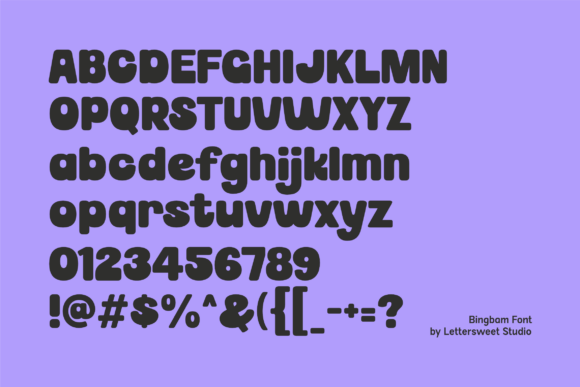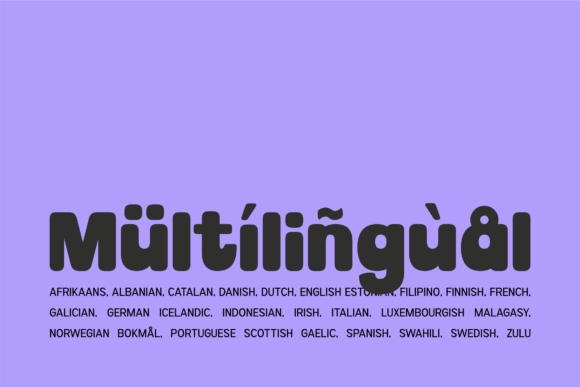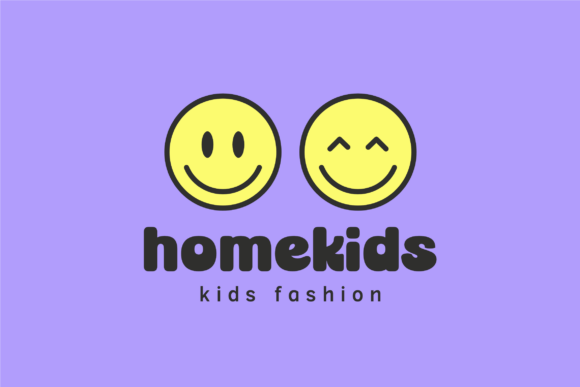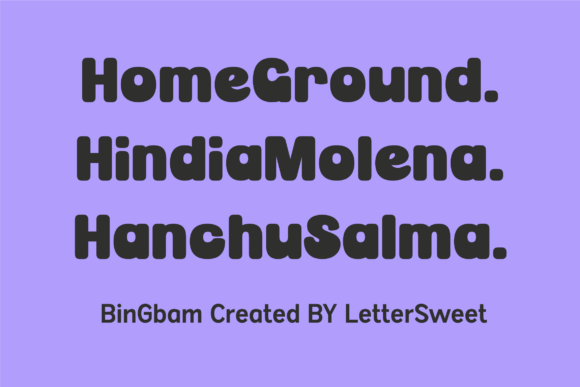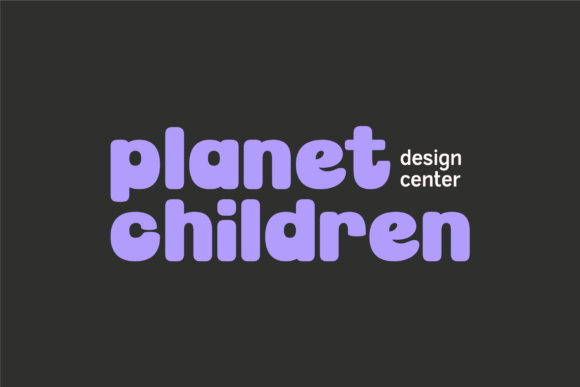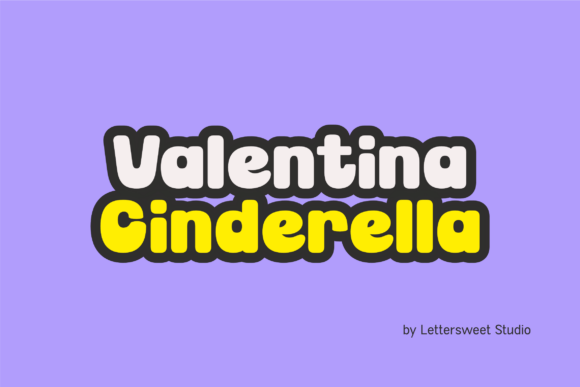
Bring Joy to Your Designs with the Bingbam Font
Have you ever been brainstorming a new project and suddenly a burst of creative energy hits you? You see a bright color palette, a playful font, and a catchy phrase all come together in your mind’s eye. That’s exactly the kind of spark the Bingbam Font is designed to ignite in your designs. This bold and cheerful font is the perfect companion for any project that needs a playful touch.
The Bingbam Font is a masterclass in capturing attention and delivering a unique visual impact. Its chunky letterforms and rounded edges make every word feel lively and energetic, perfect for kids’ projects, cartoons, branding, and social media graphics. Whether you’re creating a logo, headlines, or packaging, the Bingbam Font is sure to bring a smile to your audience’s face.
Bingbam Font Key Features
- Font Family: Bingbam Font is a sans-serif font family designed for digital use.
- Character Count: Bingbam Font includes a wide range of characters, including Latin, Cyrillic, and Greek alphabets, as well as punctuation and symbols.
- Size: Bingbam Font comes in 8 different font weights, ranging from Light to Black, allowing for versatility in design applications.
- Resolution: Designed to be highly legible at high resolutions, Bingbam Font is ideal for use in digital media, such as web design, mobile apps, and video games.
- Unique Characteristics: Bingbam Font features a clean, modern aesthetic with subtle rounded edges, making it an excellent choice for contemporary designs.
Bingbam Font Review
I recently had the chance to work with the Bingbam Font, and overall, I’m quite impressed. The font has a unique and playful vibe that’s perfect for projects that need a bit of whimsy. Here are some things that work well: ✨
- The font’s letterforms are well-designed and visually appealing.
- It’s great for use in digital design, particularly on screens where the font’s bold and bright appearance really shines.
- The font’s font-weight system is well-implemented, allowing for a range of weights to achieve the perfect look.
However, I did encounter a few limitations: ⚠️
- The font’s character set is somewhat limited, which may make it difficult to use in projects that require a wide range of languages or special characters.
- The font’s x-height could be adjusted for better legibility, particularly in smaller font sizes.
- The font’s italic and oblique styles could be improved for better readability.
Overall, I’m happy with the Bingbam Font, but I do think it could benefit from a bit more development to make it more versatile and user-friendly. If you’re looking for a fun and playful font for a specific project, I’d definitely recommend giving Bingbam a try. Just be aware of its limitations, and you’ll be golden.
Getting the Most Out of Bingbam Font
To get the most out of the Bingbam Font, experiment with different font sizes, colors, and styles to create unique and visually appealing designs.
Use the Bingbam Font to add a touch of elegance and sophistication to your designs.
The Bingbam Font is commonly used for:
2. Luxury brand logos and packaging.
3. High-end marketing materials and advertising.
Alternatives to Bingbam Font for Designers
Great Vibes is a modern script font perfect for creating a friendly and approachable atmosphere. It’s ideal for use in logos, branding, and advertising materials where a touch of elegance is needed.
Compared to Bingbam Font, Great Vibes has a more refined and sophisticated look, making it suitable for high-end designs. It also has a wider range of language support, making it a great choice for international designs.
Alex Brush is a beautiful script font that exudes warmth and sophistication. It’s perfect for use in invitations, packaging, and other materials where a touch of elegance is needed.
Compared to Bingbam Font, Alex Brush has a more refined and classic look, making it suitable for traditional designs. It also has a wider range of ligatures, making it easier to typeset complex text.
Pacifico is a beautiful script font that evokes a sense of relaxation and calmness. It’s perfect for use in travel and wellness branding, as well as in materials where a touch of tropical flair is needed.